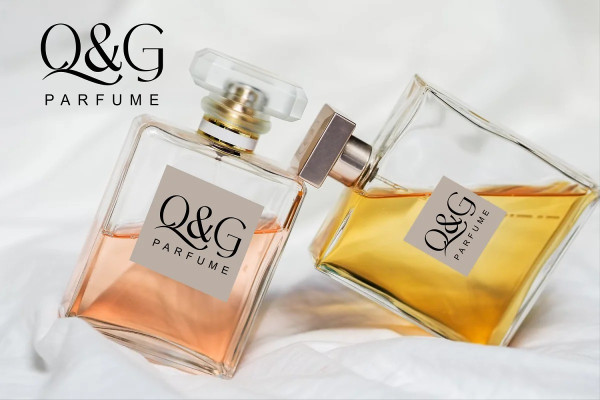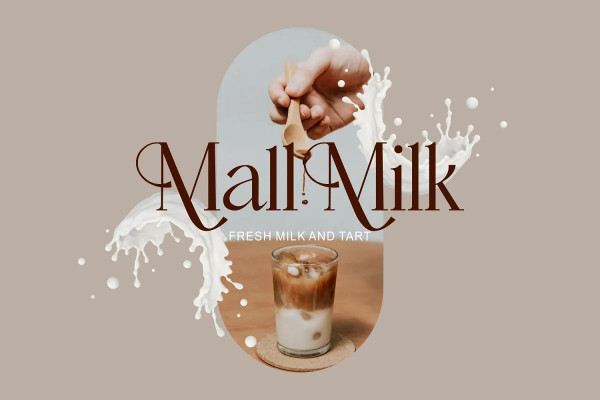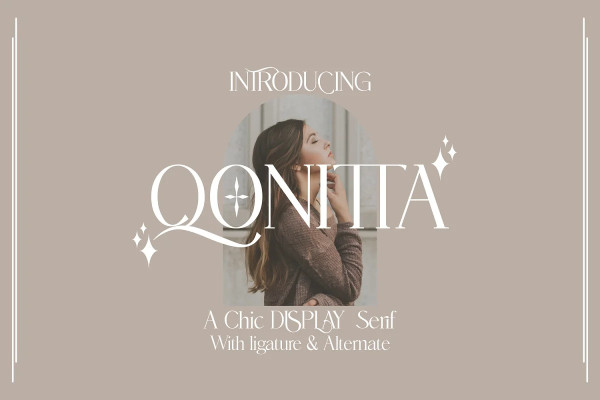
Qonitta Font
Qonitta Font is a serif display with a character that is beautiful, and elegant. With the addition of beautiful ligatures and alternatives to make your typography truly unique. No special software is required to type standard Typeface characters. To access Opentype Ligatures and Alternates, you need software that supports the Opentype feature in fonts.